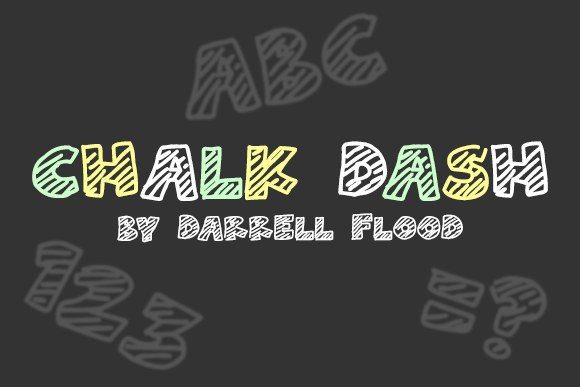
Introducing Chalk Dash Font: A Fun and Bold Decorative Font
Are you looking for a font that adds a touch of playfulness and creativity to your designs? Look no further than Chalk Dash Font, a casual hand-drawn font created by Darrell Flood. This unique font uses strong shapes, thick lines, and heavy hatching to achieve a distinctive look that’s perfect for a variety of design projects.
What is Chalk Dash Font?
Chalk Dash Font is a decorative font that’s designed to resemble chalk drawings. It features bold, thick lines and heavy hatching, which gives it a textured and hand-drawn feel. The font is perfect for designers and crafters who want to add a personal touch to their work. Whether you’re creating posters, flyers, or social media graphics, Chalk Dash Font is sure to make your designs stand out.
Key Features of Chalk Dash Font
- Hand-drawn design: Chalk Dash Font is a hand-drawn font, which gives it a unique and personal feel.
- Bold and thick lines: The font features bold and thick lines, which make it perfect for headlines and titles.
- Heavy hatching: The heavy hatching used in the font gives it a textured and chalk-like appearance.
- Strong shapes: The font uses strong shapes, which add to its overall bold and playful look.
- Fun and playful: Chalk Dash Font is a fun and playful font that’s perfect for designs that require a touch of personality.
Who is Chalk Dash Font for?
Chalk Dash Font is perfect for designers and crafters who want to add a personal touch to their work. It’s ideal for:
- Graphic designers: Graphic designers who want to create bold and eye-catching designs will love Chalk Dash Font.
- Crafters: Crafters who want to add a personal touch to their projects will find Chalk Dash Font to be a great addition to their design toolkit.
- Social media influencers: Social media influencers who want to create engaging and playful graphics will love Chalk Dash Font.
- Small business owners: Small business owners who want to create bold and eye-catching signage or marketing materials will find Chalk Dash Font to be a great choice.
- Use it for headlines: Chalk Dash Font is perfect for headlines and titles. Use it to add a bold and eye-catching touch to your designs.
- Experiment with colors: Chalk Dash Font looks great in a variety of colors. Experiment with different colors to find the one that works best for your design.
- Combine it with other fonts: Chalk Dash Font can be combined with other fonts to create a unique and interesting look.
Chalk Dash Font is a fun and bold decorative font that’s perfect for designers and crafters who want to add a personal touch to their work. Its unique design, which features strong shapes, thick lines, and heavy hatching, makes it a great choice for a variety of design projects. Download Chalk Dash Font today and start creating bold and eye-catching designs that are sure to stand out.
- Font Designer: Darrell Flood
- Font Type: Decorative, Hand-drawn